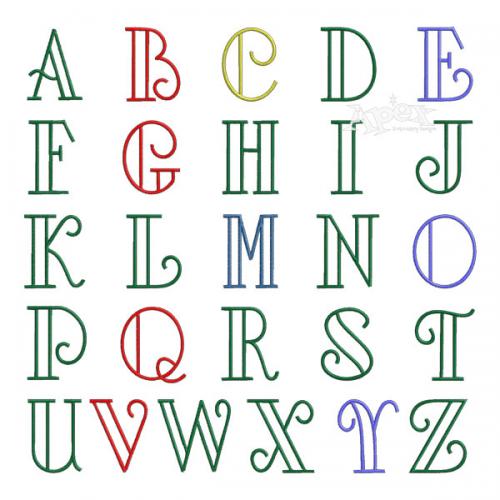
Easy Fonts To Embroider . They add a level of finesse that’s hard to match. digitizing embroidery requires choosing machine embroidery fonts to make every stitch contribute to a visually stunning,. in order to help you get the most out of your embroidered apparel, we’ve prepared this list of the best fonts for embroidery, as well as a couple helpful hints so you can create embroidered custom apparel that truly stands the test of time. check out these 30+ free embroidery fonts to use with your embroidery machine to monogram and. fortunately there are a few embroidery digitizers and software companies that offer free embroidery. using a font like stitch warrior or good day font in your embroidery is like having a gala event right on the fabric. from classic and elegant scripts to playful and modern typefaces, there’s a wide array of fonts to suit any embroidery project. Calligraphy fonts, such as hodgeson or angon , are perfect for projects where you want to make a statement of elegance.
digitizing embroidery requires choosing machine embroidery fonts to make every stitch contribute to a visually stunning,. Calligraphy fonts, such as hodgeson or angon , are perfect for projects where you want to make a statement of elegance. They add a level of finesse that’s hard to match. in order to help you get the most out of your embroidered apparel, we’ve prepared this list of the best fonts for embroidery, as well as a couple helpful hints so you can create embroidered custom apparel that truly stands the test of time. fortunately there are a few embroidery digitizers and software companies that offer free embroidery. check out these 30+ free embroidery fonts to use with your embroidery machine to monogram and. using a font like stitch warrior or good day font in your embroidery is like having a gala event right on the fabric. from classic and elegant scripts to playful and modern typefaces, there’s a wide array of fonts to suit any embroidery project.
Hand embroidery brings a personal touch to just about any project
Easy Fonts To Embroider digitizing embroidery requires choosing machine embroidery fonts to make every stitch contribute to a visually stunning,. fortunately there are a few embroidery digitizers and software companies that offer free embroidery. check out these 30+ free embroidery fonts to use with your embroidery machine to monogram and. from classic and elegant scripts to playful and modern typefaces, there’s a wide array of fonts to suit any embroidery project. digitizing embroidery requires choosing machine embroidery fonts to make every stitch contribute to a visually stunning,. using a font like stitch warrior or good day font in your embroidery is like having a gala event right on the fabric. They add a level of finesse that’s hard to match. Calligraphy fonts, such as hodgeson or angon , are perfect for projects where you want to make a statement of elegance. in order to help you get the most out of your embroidered apparel, we’ve prepared this list of the best fonts for embroidery, as well as a couple helpful hints so you can create embroidered custom apparel that truly stands the test of time.
Simple Easiest Font To Embroider With New Ideas Typography Art Ideas Easy Fonts To Embroider from classic and elegant scripts to playful and modern typefaces, there’s a wide array of fonts to suit any embroidery project. in order to help you get the most out of your embroidered apparel, we’ve prepared this list of the best fonts for embroidery, as well as a couple helpful hints so you can create embroidered custom apparel. Easy Fonts To Embroider.
FREE MACHINE EMBROIDERY FONTS « EMBROIDERY & ORIGAMI Easy Fonts To Embroider Calligraphy fonts, such as hodgeson or angon , are perfect for projects where you want to make a statement of elegance. in order to help you get the most out of your embroidered apparel, we’ve prepared this list of the best fonts for embroidery, as well as a couple helpful hints so you can create embroidered custom apparel that. Easy Fonts To Embroider.
Large Simple Script Machine Embroidery Font Alphabet Rivermill Embroidery Easy Fonts To Embroider from classic and elegant scripts to playful and modern typefaces, there’s a wide array of fonts to suit any embroidery project. fortunately there are a few embroidery digitizers and software companies that offer free embroidery. They add a level of finesse that’s hard to match. check out these 30+ free embroidery fonts to use with your embroidery. Easy Fonts To Embroider.
How to Embroider Letters by Hand Cutesy Crafts Easy Fonts To Embroider in order to help you get the most out of your embroidered apparel, we’ve prepared this list of the best fonts for embroidery, as well as a couple helpful hints so you can create embroidered custom apparel that truly stands the test of time. Calligraphy fonts, such as hodgeson or angon , are perfect for projects where you want. Easy Fonts To Embroider.
How to Embroider Letters Easy way to Hand Embroider Words YouTube Easy Fonts To Embroider using a font like stitch warrior or good day font in your embroidery is like having a gala event right on the fabric. Calligraphy fonts, such as hodgeson or angon , are perfect for projects where you want to make a statement of elegance. digitizing embroidery requires choosing machine embroidery fonts to make every stitch contribute to a. Easy Fonts To Embroider.
26 Hand Embroidery Letters for Beginners Top Stitches In Hand Easy Fonts To Embroider fortunately there are a few embroidery digitizers and software companies that offer free embroidery. They add a level of finesse that’s hard to match. from classic and elegant scripts to playful and modern typefaces, there’s a wide array of fonts to suit any embroidery project. in order to help you get the most out of your embroidered. Easy Fonts To Embroider.
How to embroider letters by hand with style Easy Fonts To Embroider Calligraphy fonts, such as hodgeson or angon , are perfect for projects where you want to make a statement of elegance. digitizing embroidery requires choosing machine embroidery fonts to make every stitch contribute to a visually stunning,. in order to help you get the most out of your embroidered apparel, we’ve prepared this list of the best fonts. Easy Fonts To Embroider.
Simple Easiest Font To Embroider With New Ideas Typography Art Ideas Easy Fonts To Embroider using a font like stitch warrior or good day font in your embroidery is like having a gala event right on the fabric. from classic and elegant scripts to playful and modern typefaces, there’s a wide array of fonts to suit any embroidery project. Calligraphy fonts, such as hodgeson or angon , are perfect for projects where you. Easy Fonts To Embroider.
How To Embroider Letters By Hand For Beginners Crewel Ghoul Easy Fonts To Embroider digitizing embroidery requires choosing machine embroidery fonts to make every stitch contribute to a visually stunning,. from classic and elegant scripts to playful and modern typefaces, there’s a wide array of fonts to suit any embroidery project. check out these 30+ free embroidery fonts to use with your embroidery machine to monogram and. in order to. Easy Fonts To Embroider.